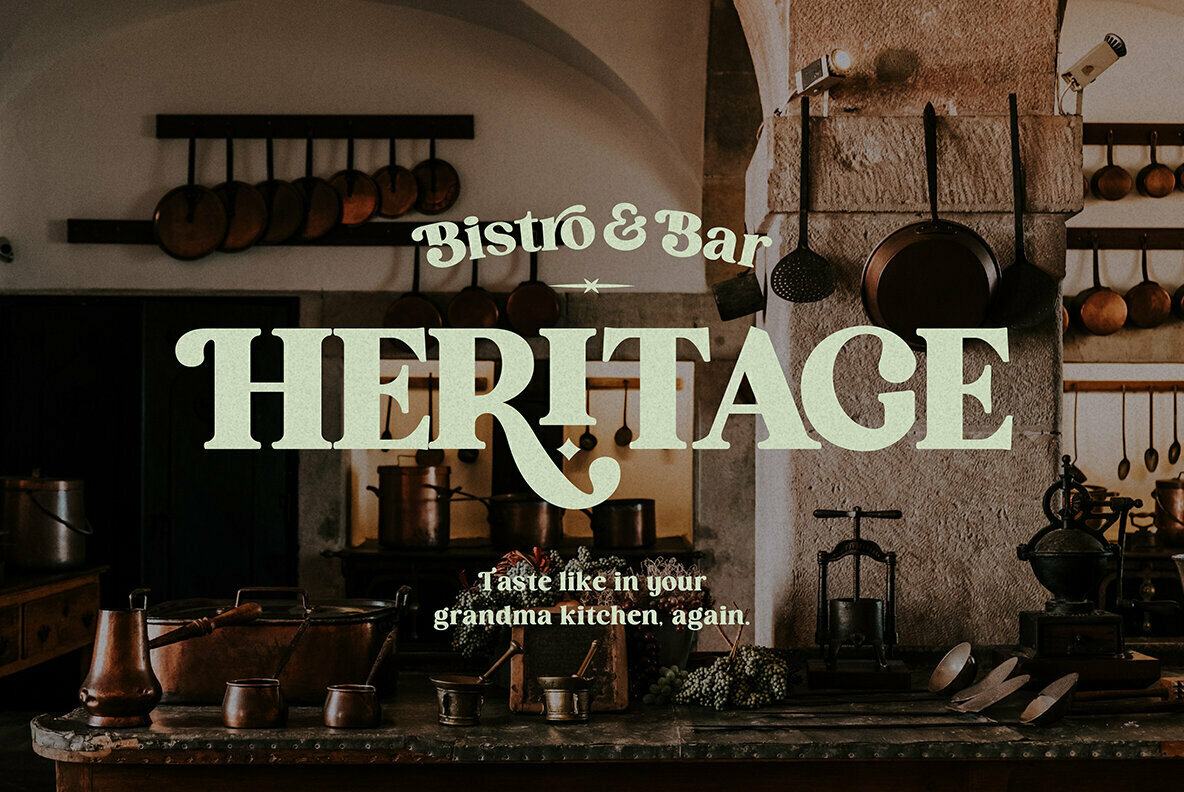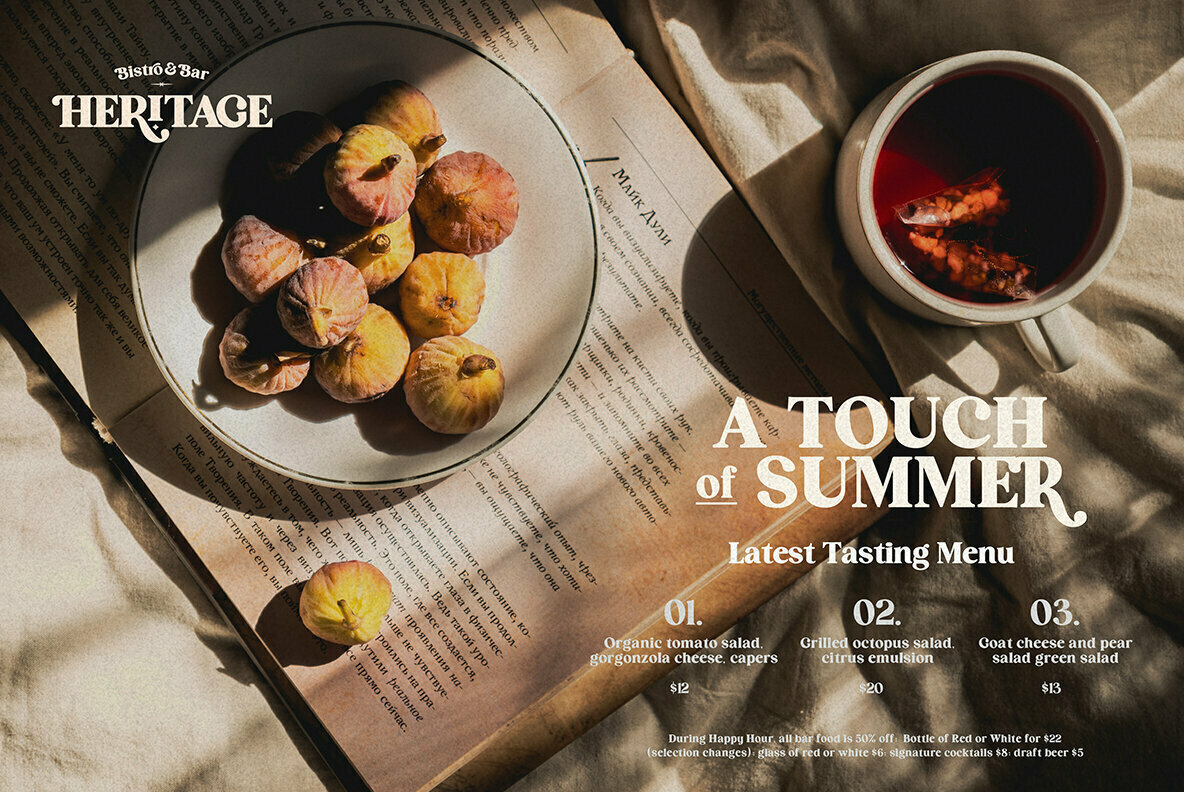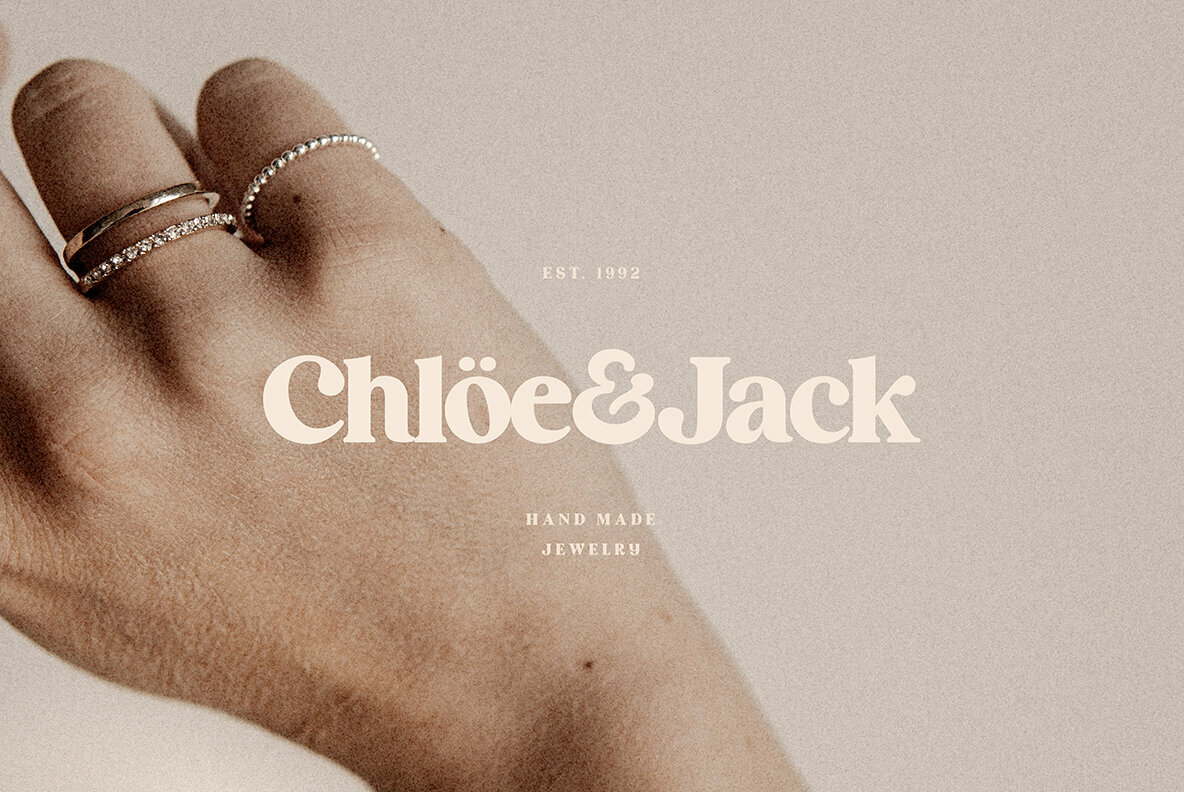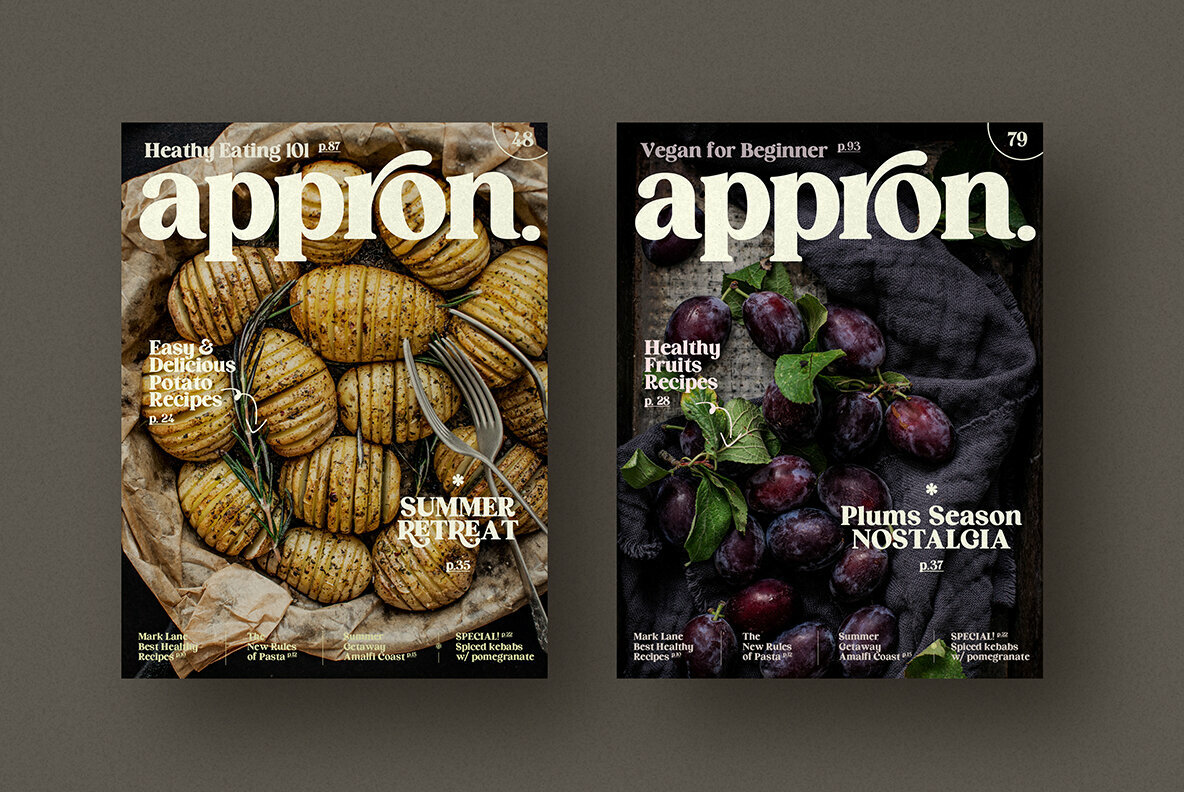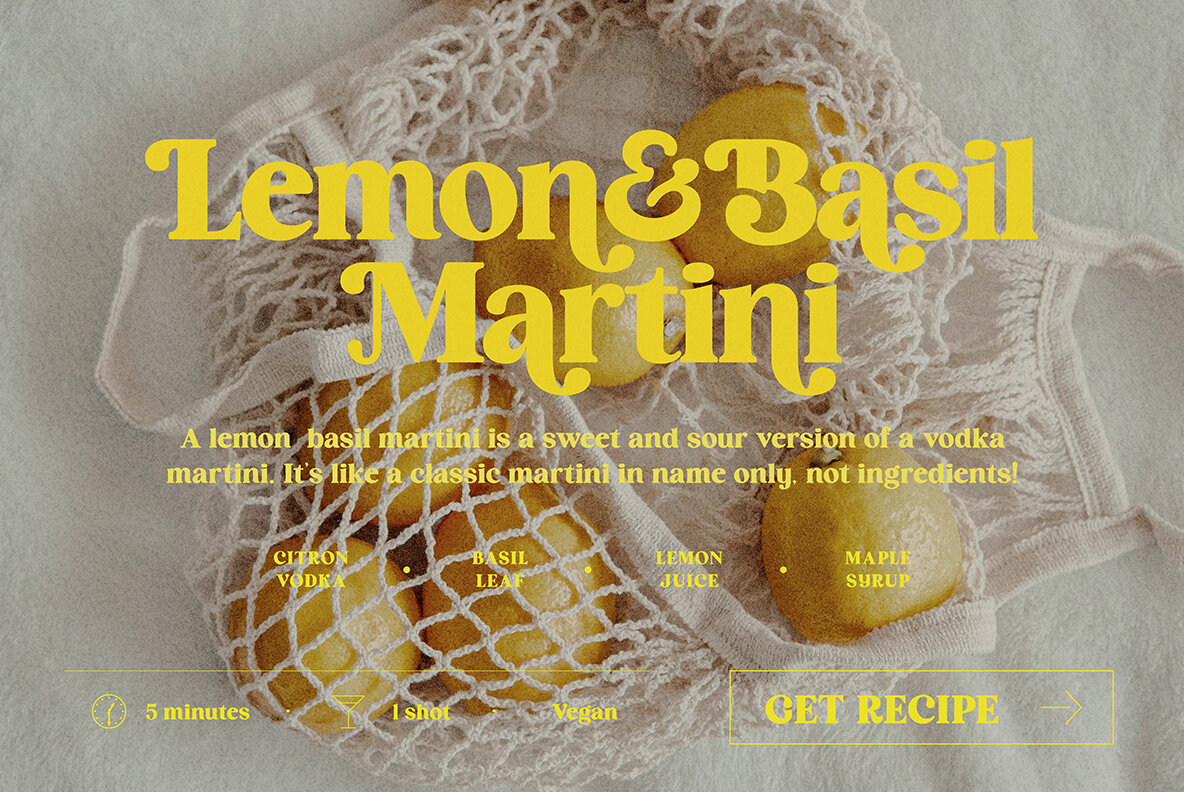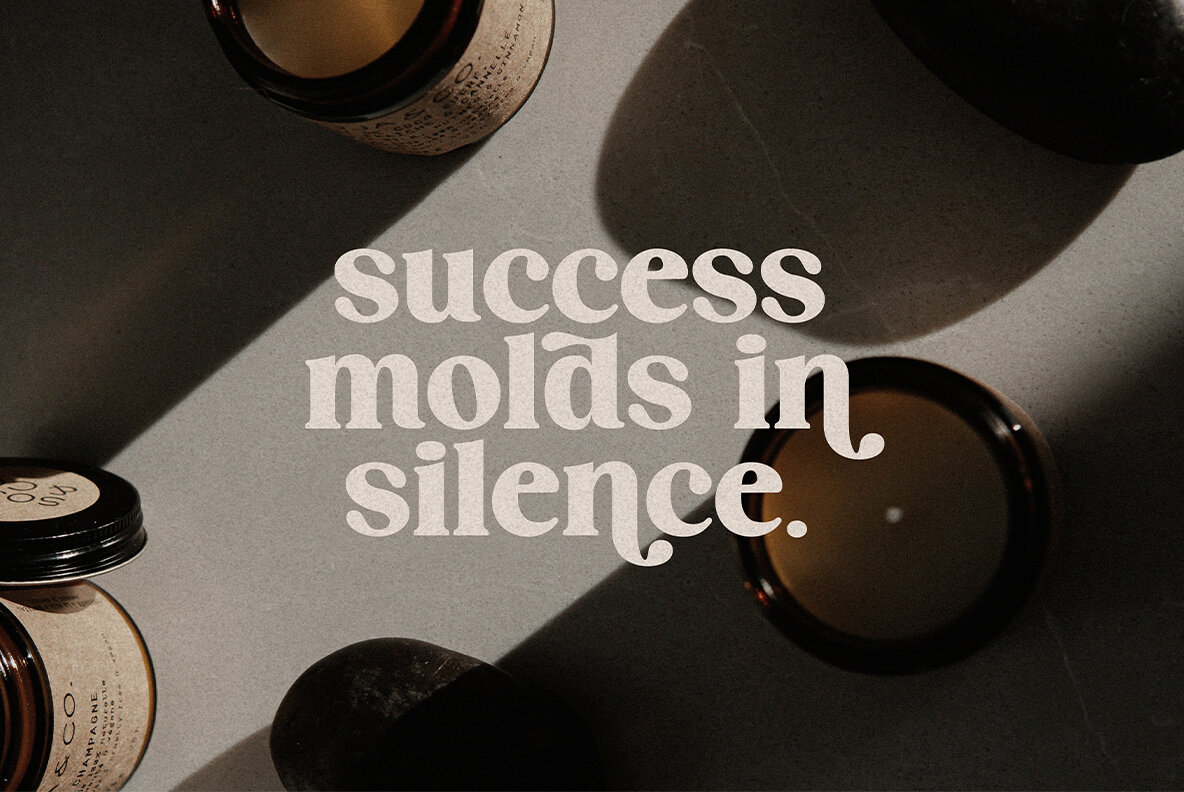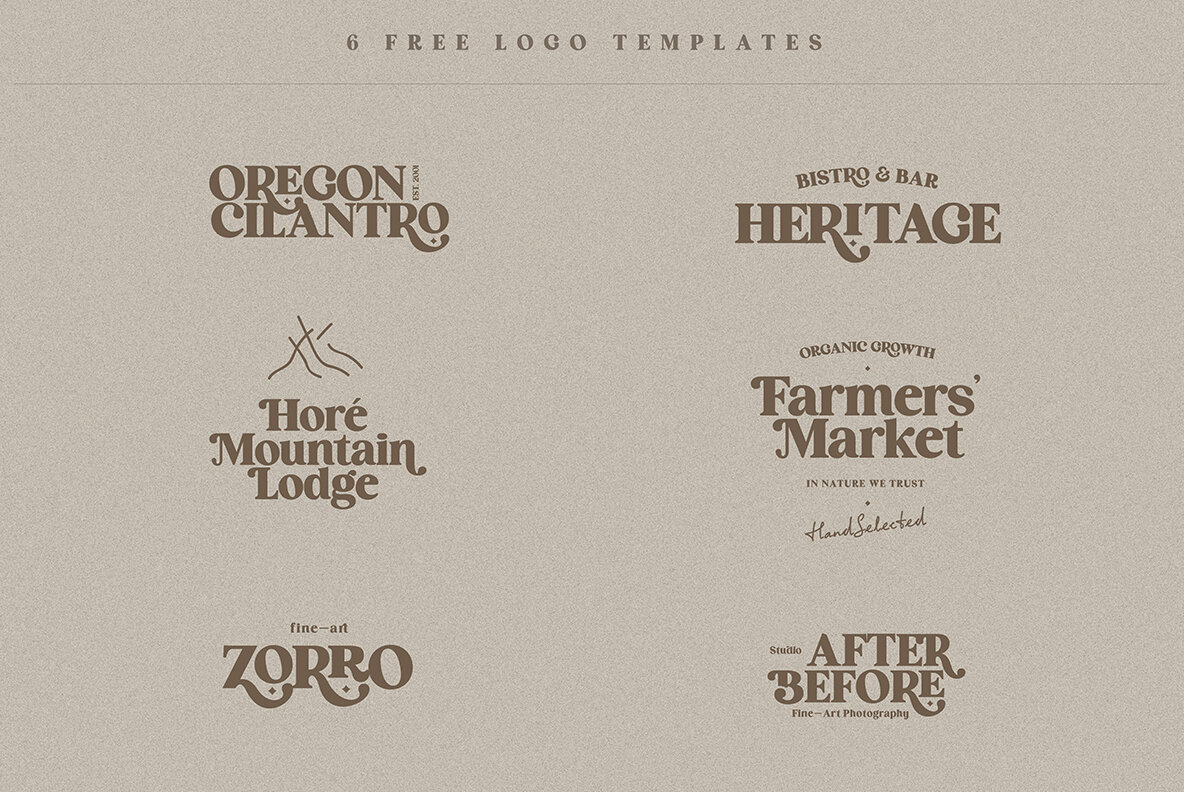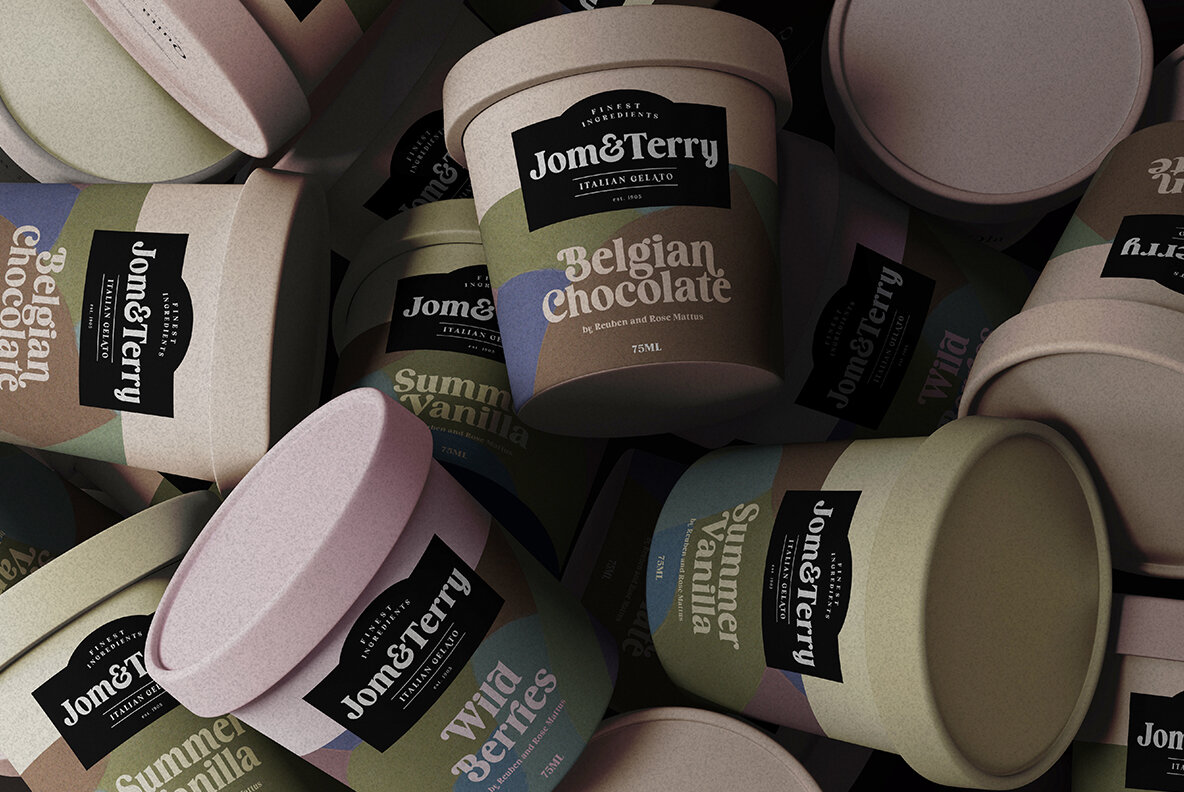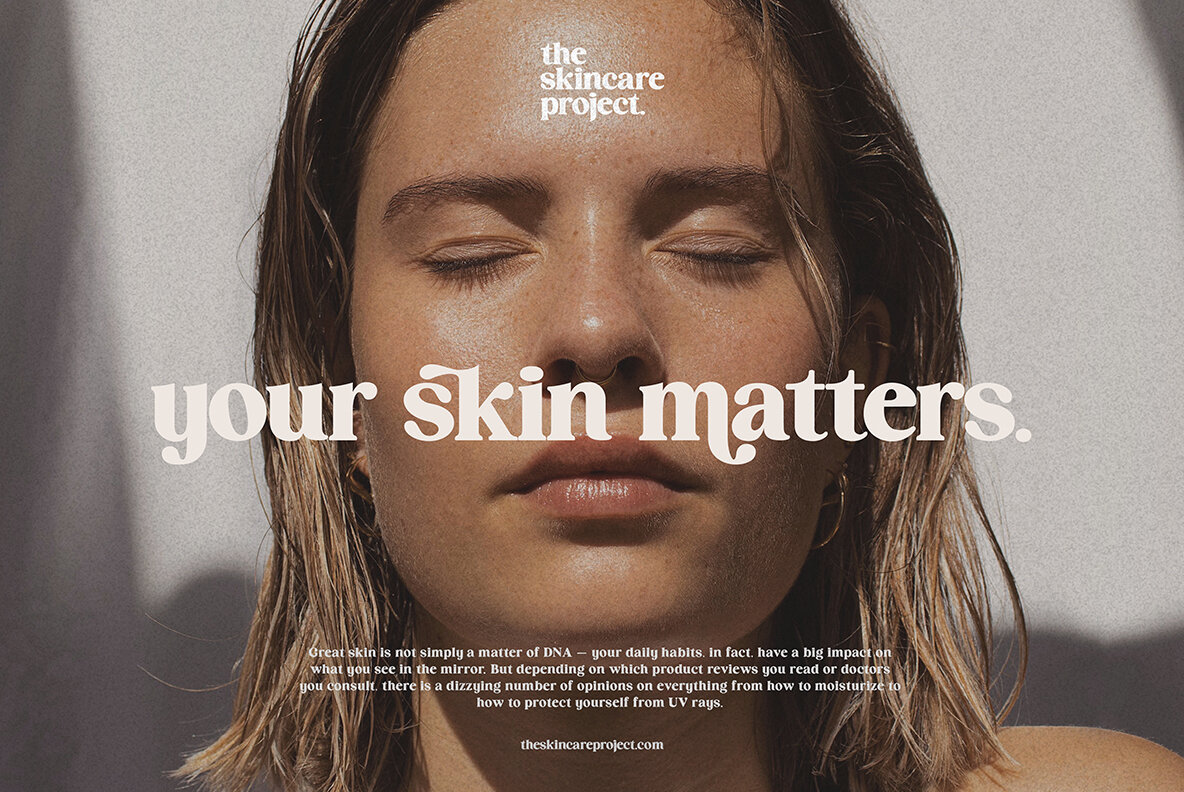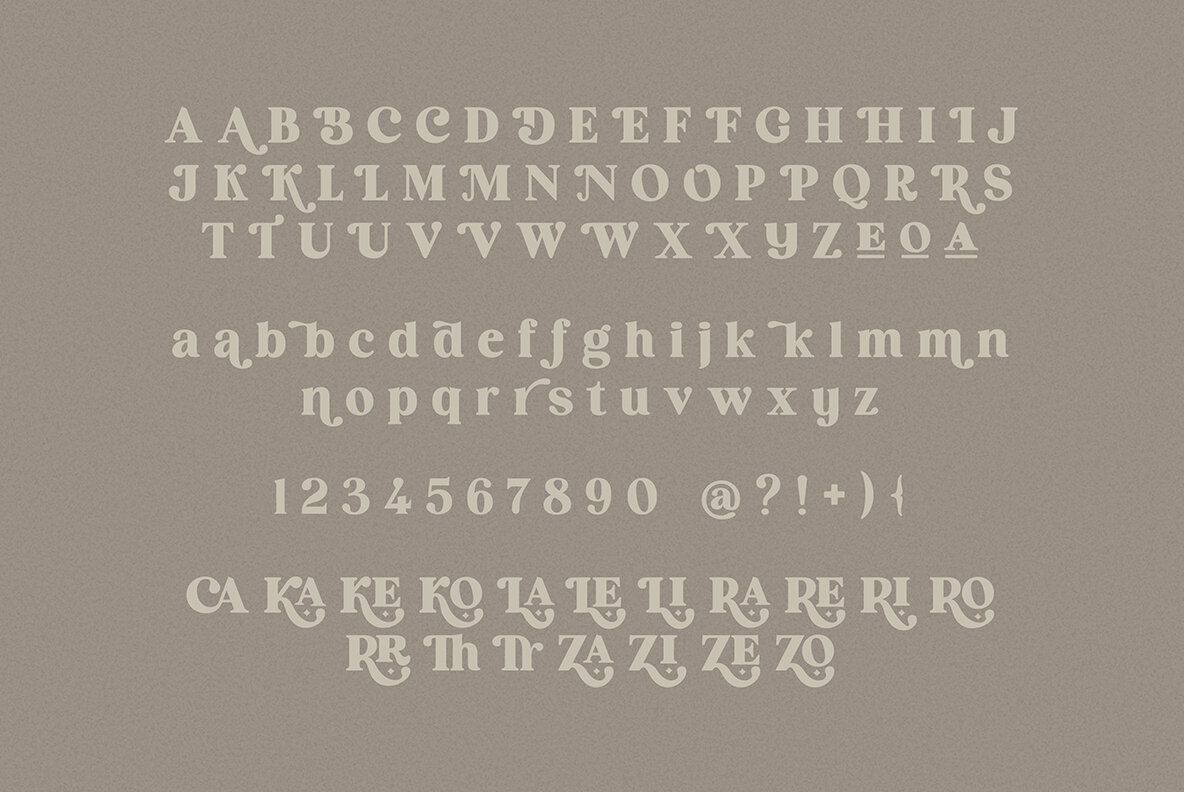
Cocktail: Elegant Retro Serif with Artistic Flair
Cocktail by Harmonais Visual is a charming retro serif font, thoughtfully crafted for those seeking to infuse an artistic touch into their vintage and elegant projects. Ideal for logos, titles, and packaging, this font effortlessly enhances simple, lifestyle-driven designs.
• European Language Support – Broadens your audience with extensive language options.
• Ligatures – Provides connections between characters for fluid reading.
• Alternate Stylistic Sets – Offers creative avenues for customizing design elements.